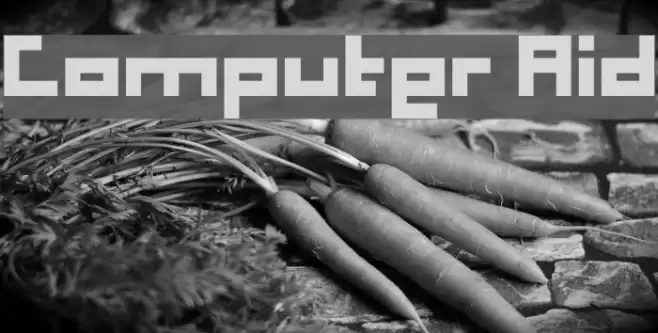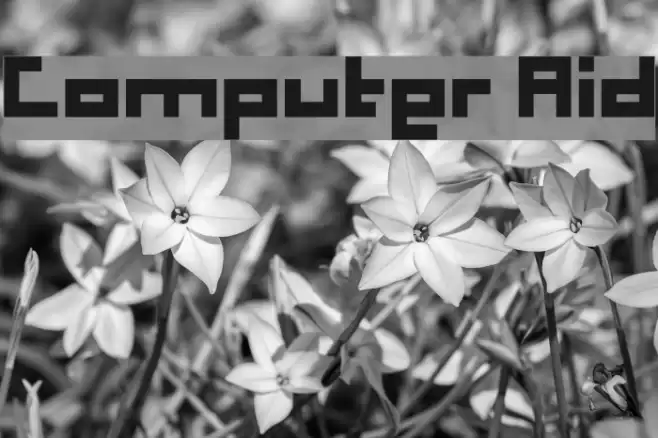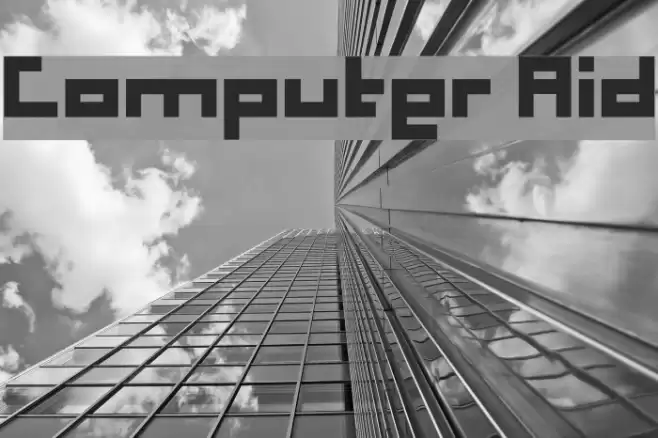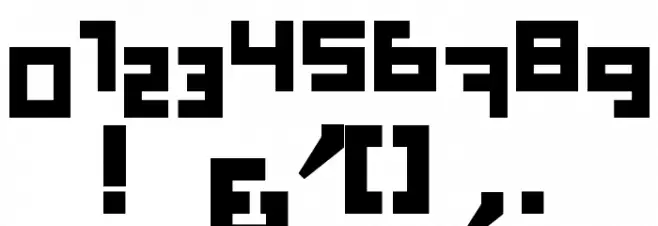
Computer Aid Font
Computer Aid Description
This font features a bold, geometric design with a distinctly digital or pixelated aesthetic. Each character is composed of sharp, angular lines, giving it a blocky and futuristic appearance. The uppercase and lowercase letters maintain a consistent height, contributing to a uniform look across the typeface. The numerals and special characters follow the same design principles, ensuring cohesion throughout. The font's style is reminiscent of early computer graphics and video game text, making it ideal for projects that require a retro or tech-inspired theme.
A bold, geometric font with a digital, pixelated style from Futuristic fonts.
- Proposed Projects: Ideal for video game design, tech-themed posters, digital art, and retro-style branding.
- Overall Style: Modern, Retro